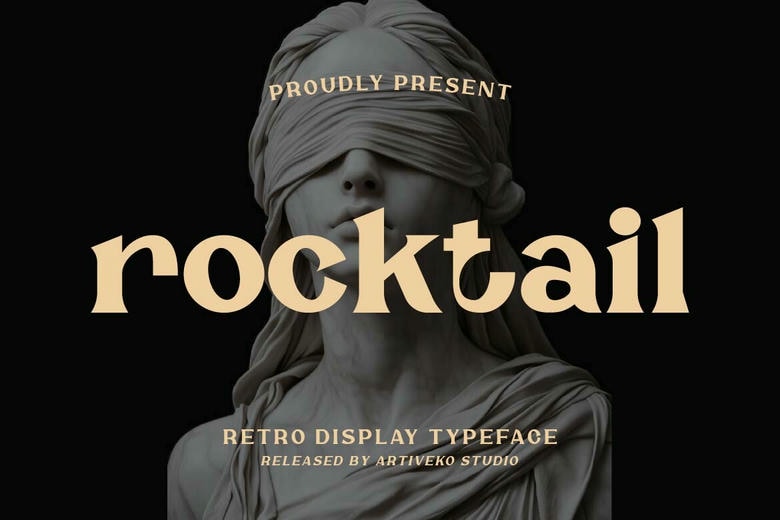
Rocktail Font
Rocktail is a bold retro serif display font with chunky letters, soft curves, and strong shapes. Inspired by classic print and vintage editorial design, it brings a nostalgic yet polished feel.
Each letter in Rocktail has carefully crafted curves, sometimes in surprising places, giving the font its unique and consistent style. The set includes uppercase and lowercase letters, numbers, a wide range of punctuation and symbols, accented Latin characters, and special ligatures for a polished look.
Rocktail Retro Serif Display Font